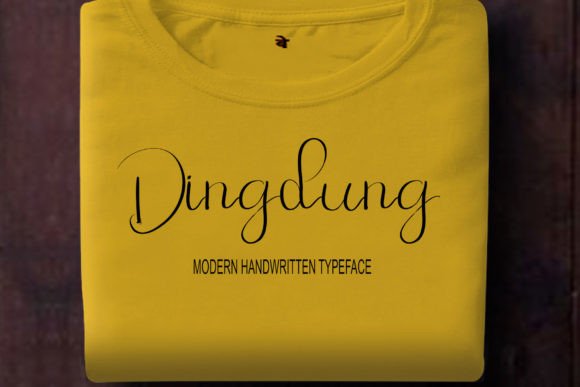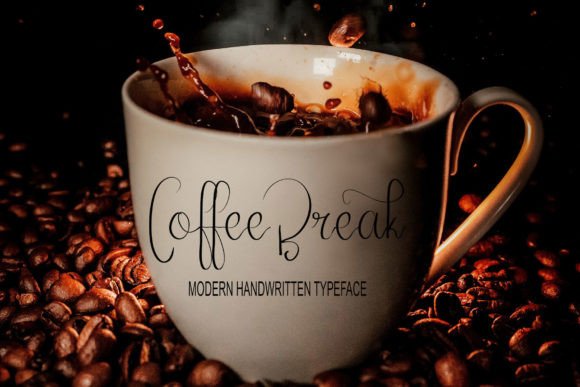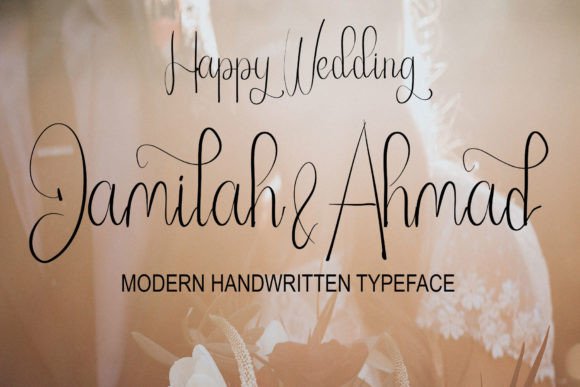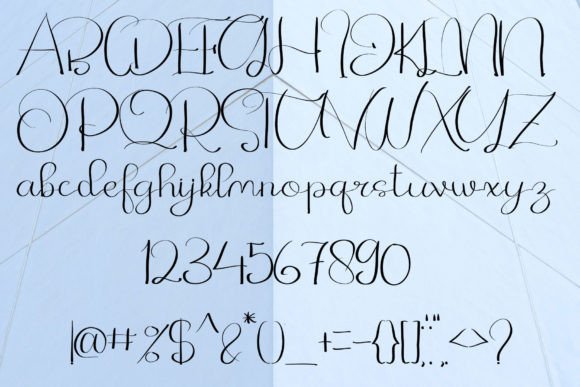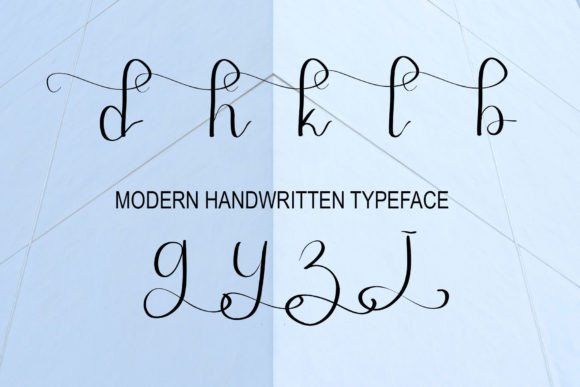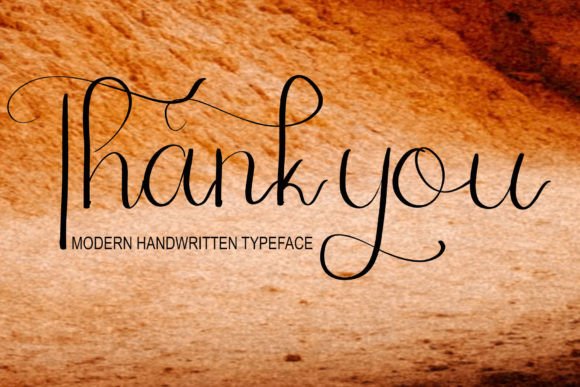
Introduction to Singadia Font
As a designer, there’s nothing quite like the thrill of discovering a new font that sparks inspiration for a creative project. For me, that moment came when I stumbled upon the beautiful Singadia Font. Written by hand using a tablet, this simple yet stylish script font has been a game-changer for my design work.
| 👤 Author | Canden Meutuah |
Whether I’m working on a website, wedding invitation, business card, or advertisement, Singadia Font has become my go-to choice for adding a touch of elegance and sophistication. And the best part? It’s completely free to download, making it an invaluable resource for designers on a budget.
With its transparent background and high-quality design, Singadia Font is a versatile and accessible design resource that’s sure to elevate any project. In this article, we’ll take a closer look at the features and benefits of Singadia Font, and explore why it’s a valuable addition to any designer’s toolkit.
Key Features of Singadia Font
- Perfect for designers and artists seeking a distinctive font for their work.
Honest Review: Singadia Font
I recently stumbled upon the Singadia Font while searching for a design resource for my creative project. I was excited to give it a try, and here’s my honest review.
- ✨ High-quality design: The Singadia Font has a unique and elegant design that caught my attention.
- ⚠️ Limited character set: The Singadia Font has a limited character set, which may not be suitable for projects that require a wide range of characters.
- ⚠️ Not suitable for small text: The font may not be the best choice for small text, as it can become difficult to read.
Overall, I’m impressed with the Singadia Font. While it has some limitations, its unique design and free download make it a great addition to any designer’s toolbox. I would definitely recommend it for creative projects that require a high-quality, elegant font.
The Singadia Font is a versatile design resource that can be used in various creative projects, such as graphic design, digital art, and web design. It’s also a great option for creating free download graphics and templates.
How it compares to Singadia Font: Great Vibes Font has a more refined and elegant feel compared to Singadia Font, which has a more playful and whimsical touch.